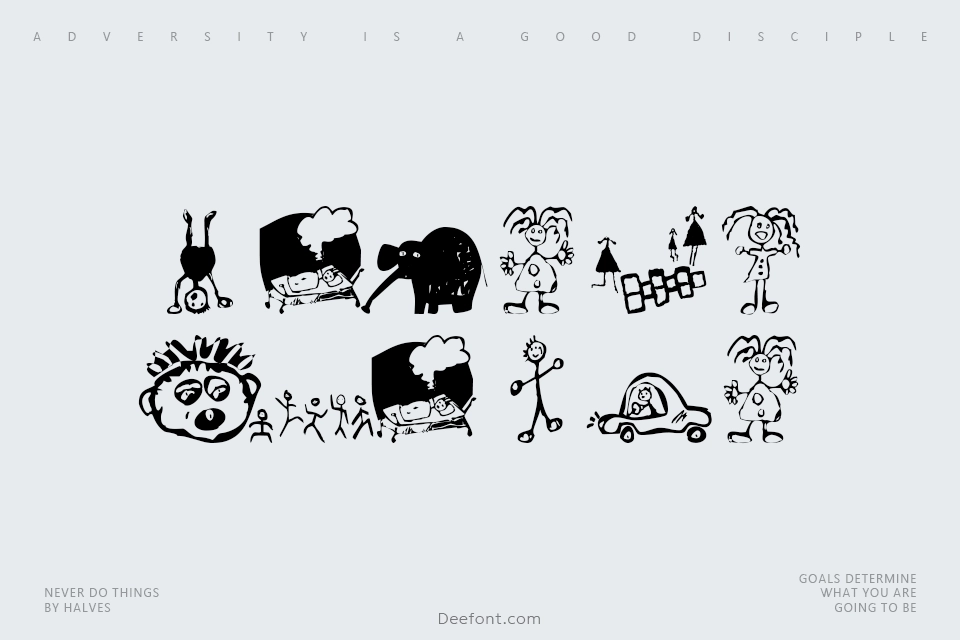
Kids Drawings Font
Kids Drawings is a playful dingbat font designed by Manfred Klein featuring whimsical kid-inspired illustrations and characters. With 66 unique glyphs, this charming typeface brings creative charm to children's projects, educational materials, and playful designs. Perfect for posters, invitations, greeting cards, and any project requiring a fun, youthful aesthetic. The font combines simple graphic elements with an innocent appeal, making it ideal for decorative typography and design applications targeting younger audiences.